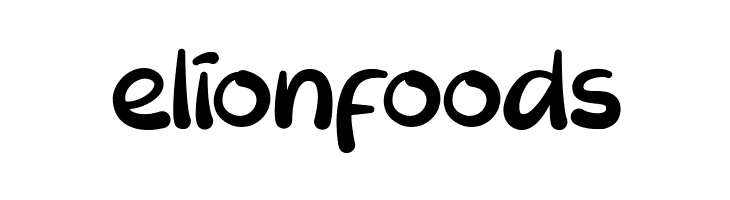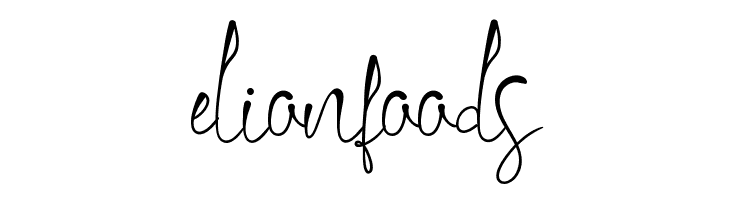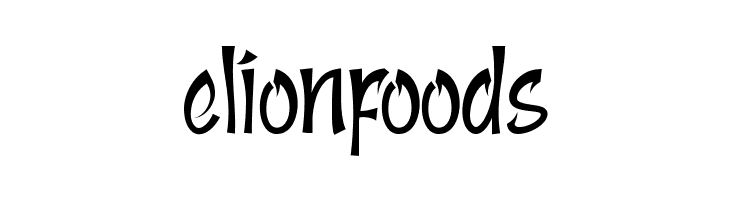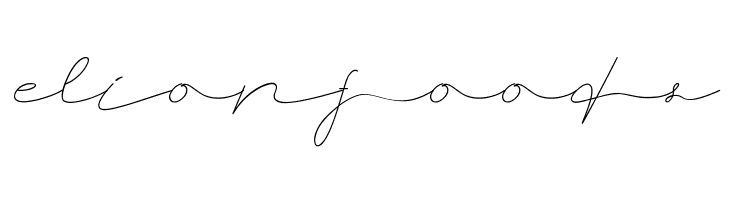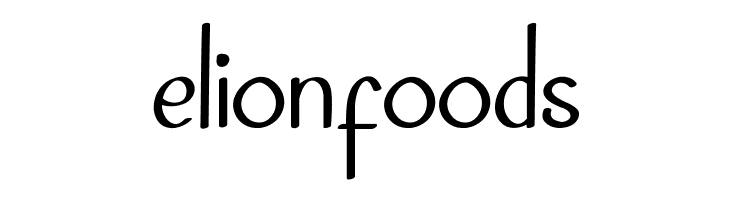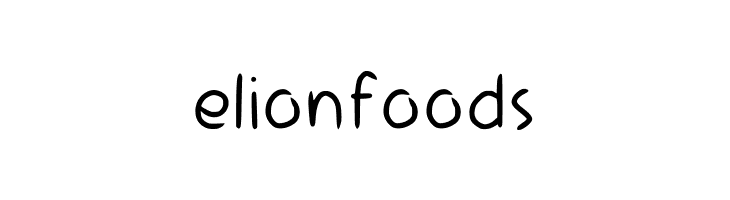
A playful, rounded, and bold font with a handwritten feel.
A dynamic script font with elegant, flowing strokes and high contrast.
A playful, Halloween-themed font with bold, jagged edges and a carved appearance.
A playful and artistic handwritten font with dynamic strokes.
A bold, expressive font with dynamic curves and sharp angles, perfect for creative projects.
A delicate, flowing script font with elegant, continuous lines.
A playful, whimsical font with tall, narrow letterforms and subtle curves.
A modern, geometric font with tall, narrow characters and consistent stroke width.
A playful, handwritten font with smooth, rounded strokes and a casual style.
A lively and energetic script font with fluid, connected letterforms.